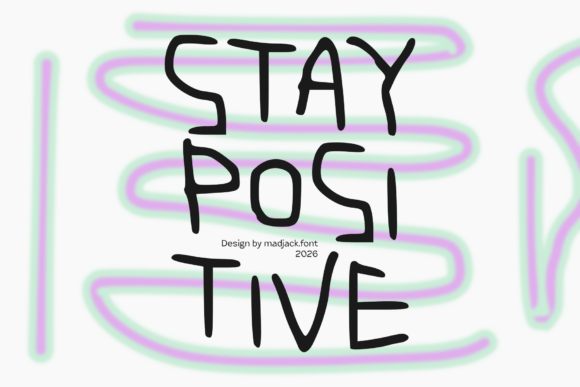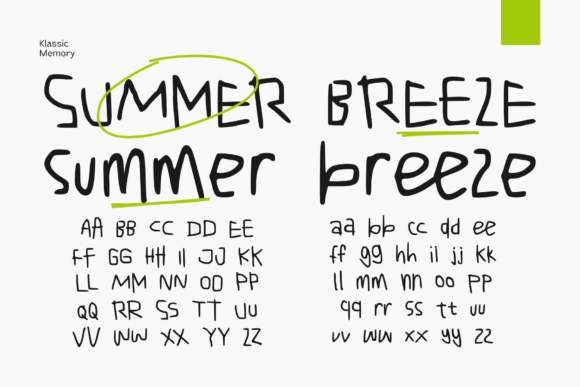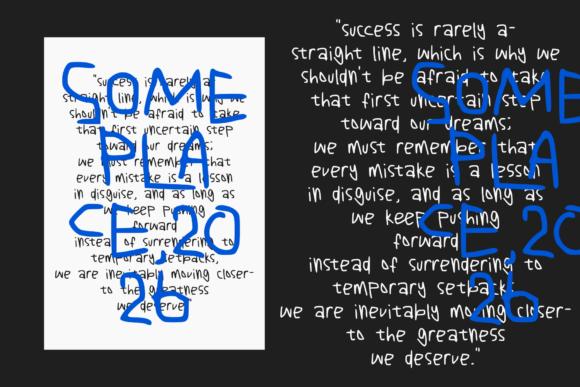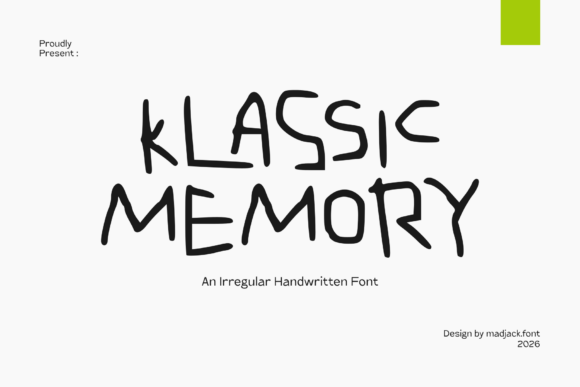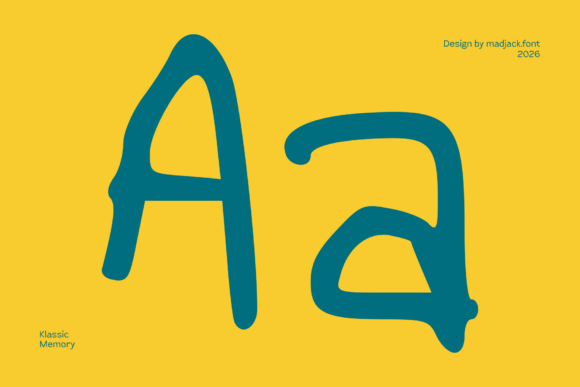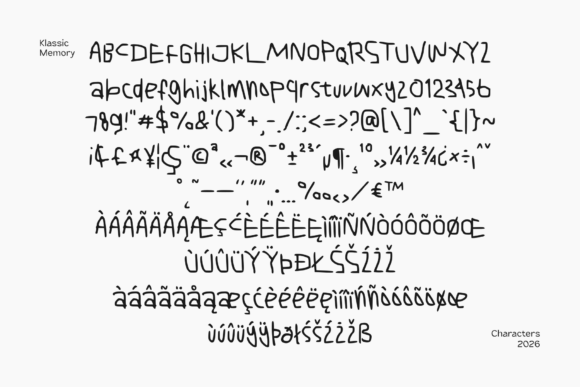
Introduction to Klassic Memory Font
You’ve spent hours brainstorming, sketching, and perfecting your design, and finally, you’ve nailed that one unique element that sets your project apart. But, have you considered the perfect font to bring your creative vision to life? If you’re looking for a high-quality design resource that adds a personal touch to your work, look no further than the Klassic Memory Font.
With its natural and expressive style, Klassic Memory Font is the perfect choice for designers seeking to add a casual, artistic, and charming touch to their projects. This free download is ideal for creative projects such as posters, branding, packaging, quotes, social media graphics, and playful design layouts. Whether you’re working on a high-end branding campaign or a social media graphic, the Klassic Memory Font is sure to elevate your design and leave a lasting impression.
What makes Klassic Memory Font truly valuable for designers is its ability to add a human touch to digital designs. With its transparent background and organic letterforms, this font is perfect for designers who want to create authentic and engaging content that resonates with their audience.
Key Features of Klassic Memory Font
- Unique, hand-drawn style with a nostalgic feel, perfect for vintage-themed designs.
- Includes a transparent background, making it easy to customize and integrate with your design.
- Supports a wide range of languages, including Latin, Cyrillic, and Greek scripts.
- Size: 10,000+ glyphs, including a wide range of characters, symbols, and ligatures.
Honest Review: Klassic Memory Font
I recently had the chance to work with the Klassic Memory Font, and I must say, it’s been a delightful experience. As a designer, I’m always on the lookout for high-quality design resources that can elevate my creative projects. And let me tell you, this font is a great find!
- High-quality design: The font has a unique, nostalgic feel to it that’s perfect for vintage-inspired projects.
- Limited character set: I found that the font only includes a limited set of characters, which can be a bit restrictive for some projects.
- No bold or italic variations: While the regular weight is great, I wish there were more options for bold and italic variations to add some extra depth to my designs.
Overall, I’m quite impressed with the Klassic Memory Font. It’s a great addition to my design resource library, and I’m sure I’ll be using it again in the future. If you’re looking for a high-quality, free font for your creative projects, I’d definitely recommend giving it a try.
Some tips for getting the most out of Klassic Memory Font include using it in conjunction with other design elements to create a cohesive look, and experimenting with different font sizes and styles to add visual interest. Common use cases for the font include creating invitations, posters, and other promotional materials for events or products.